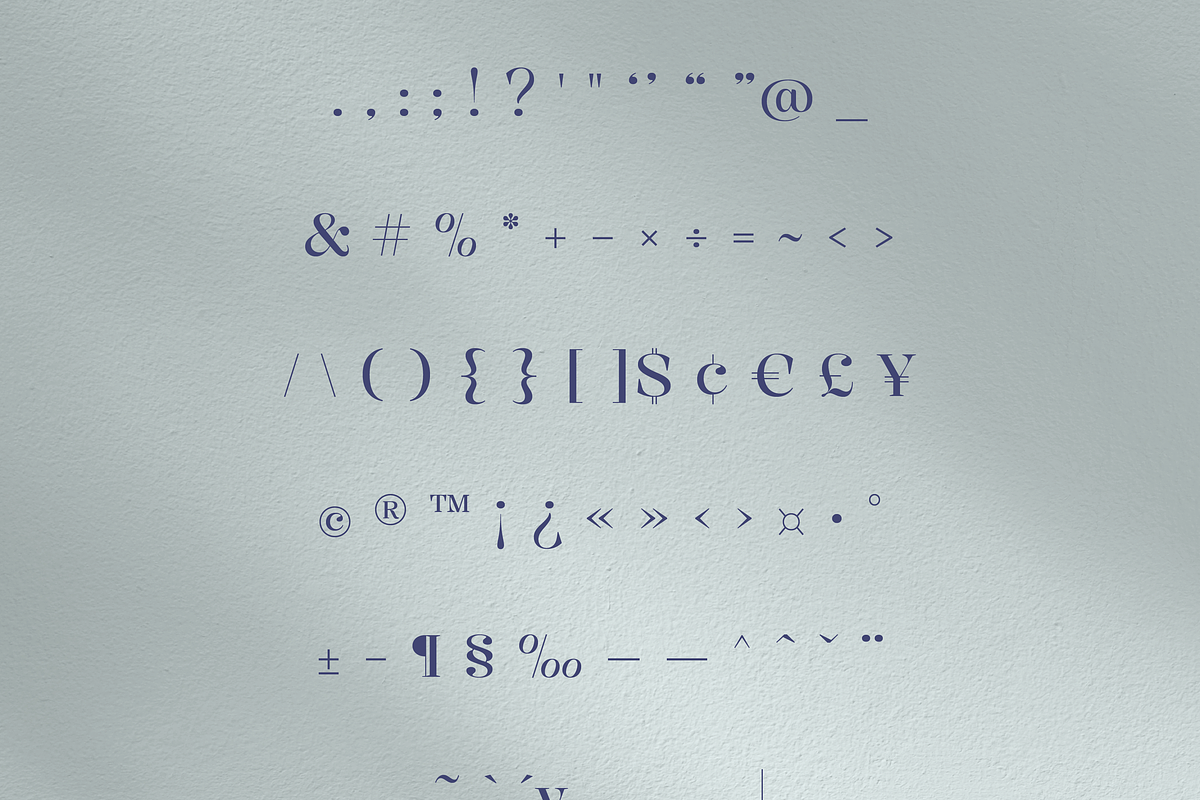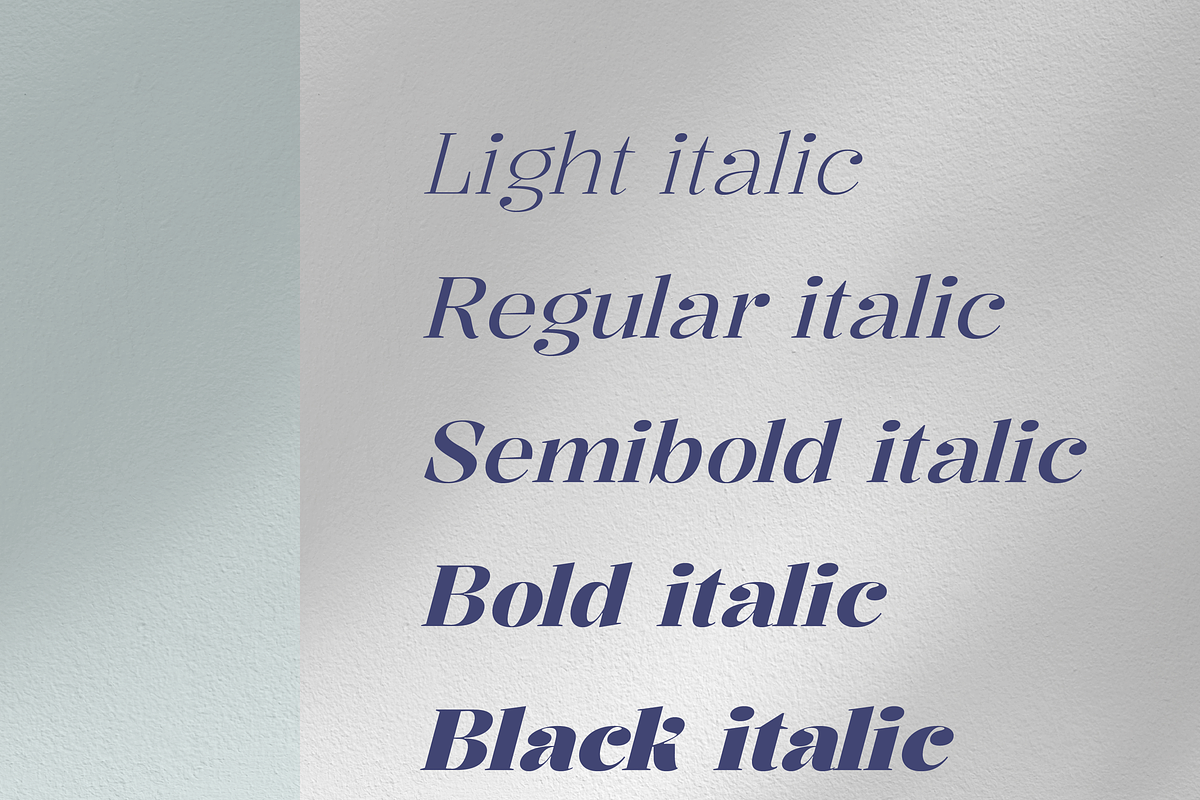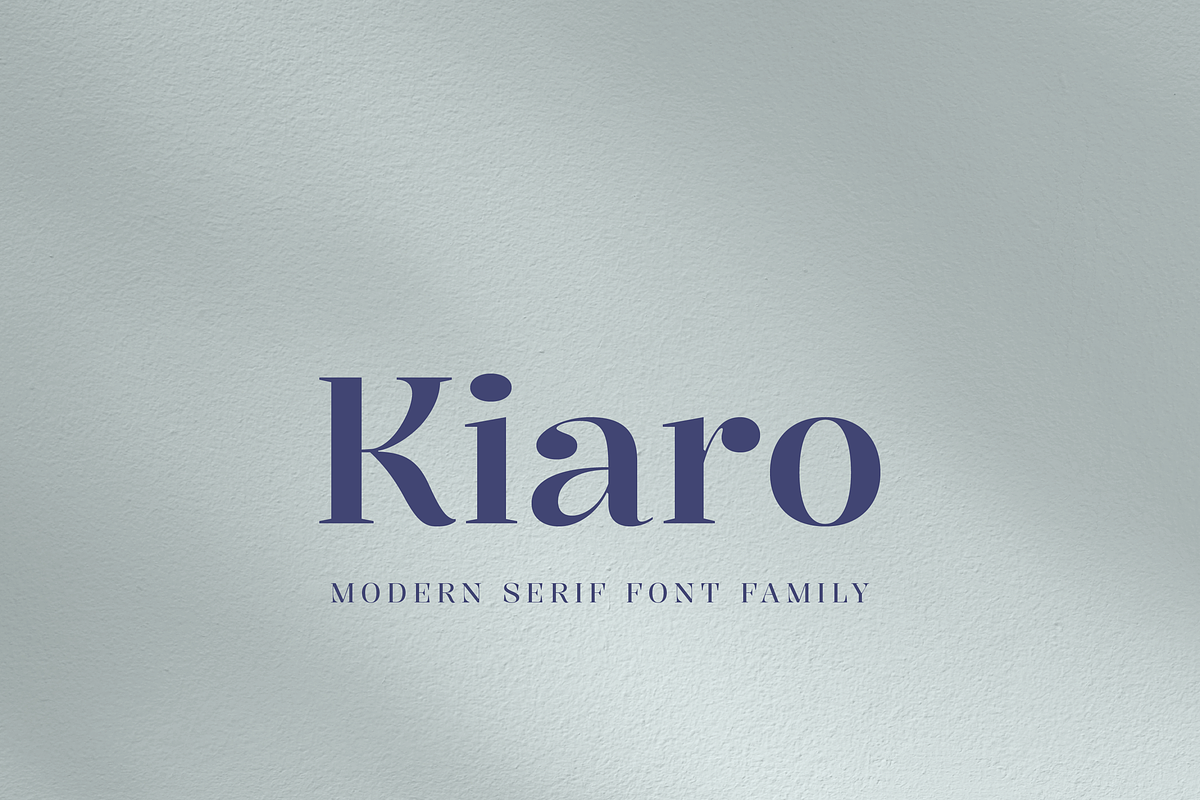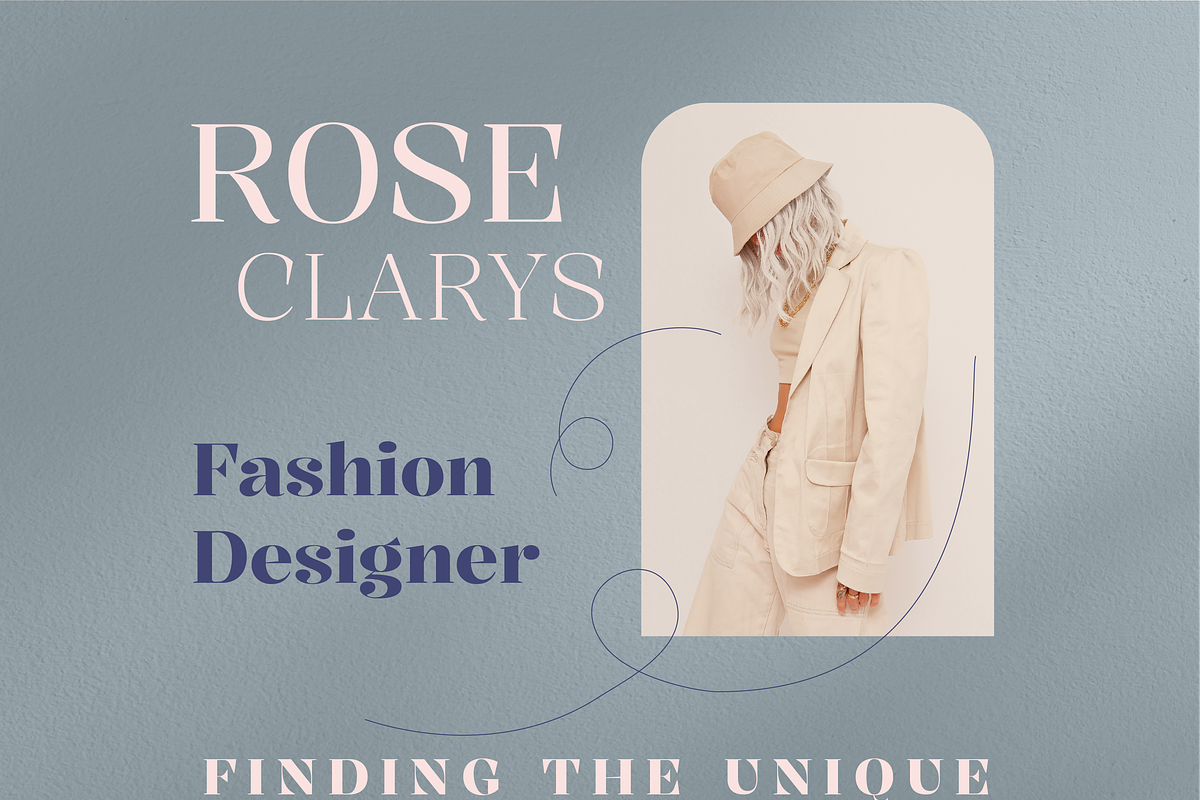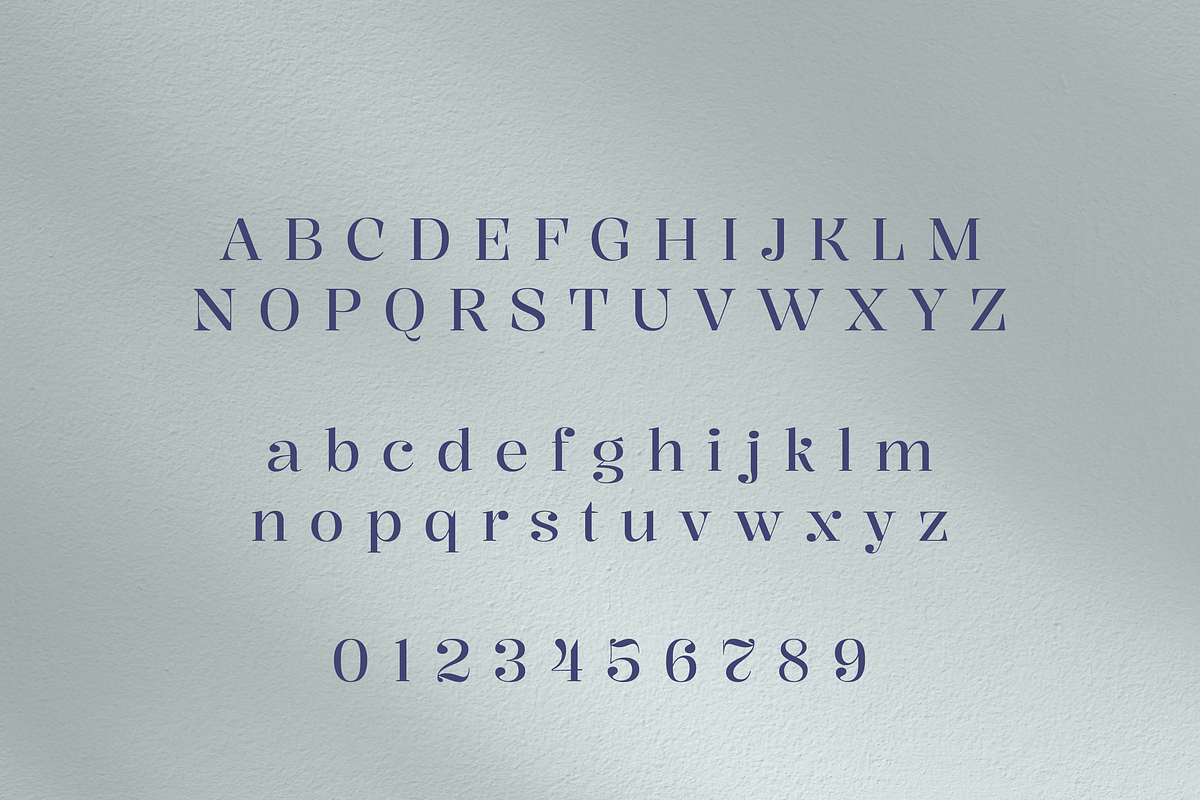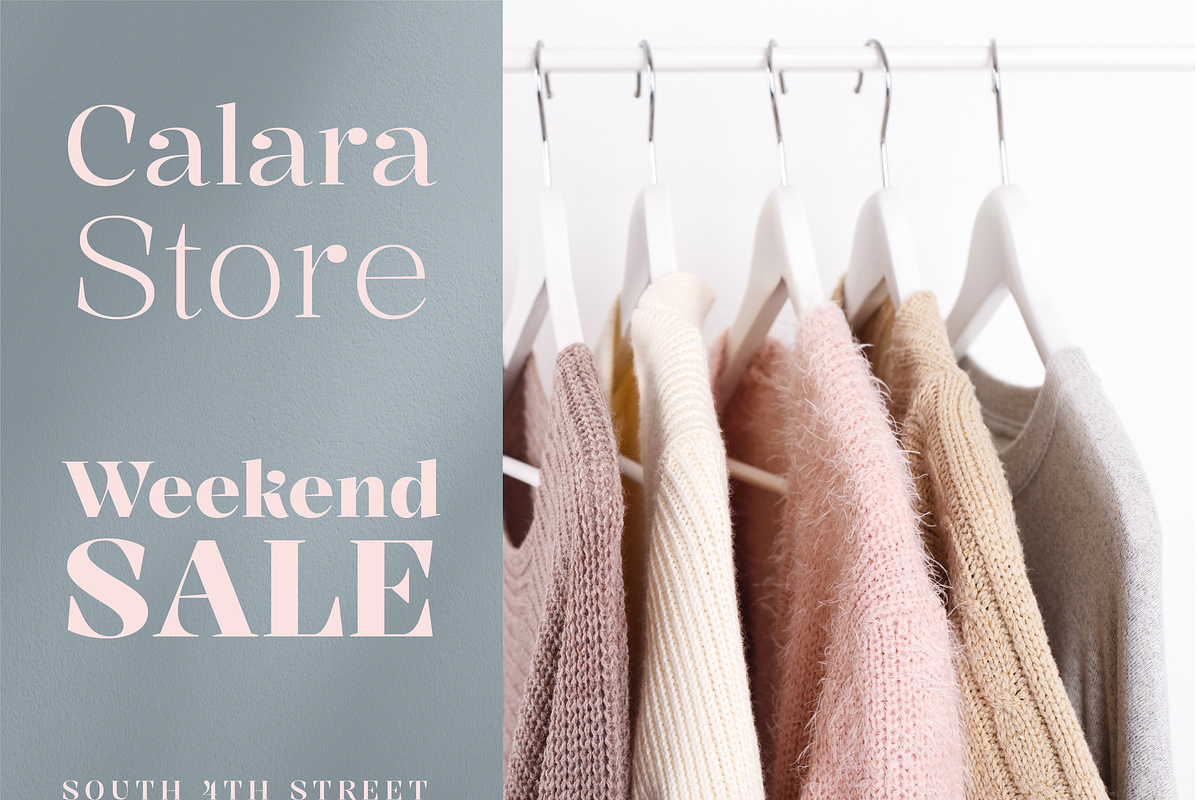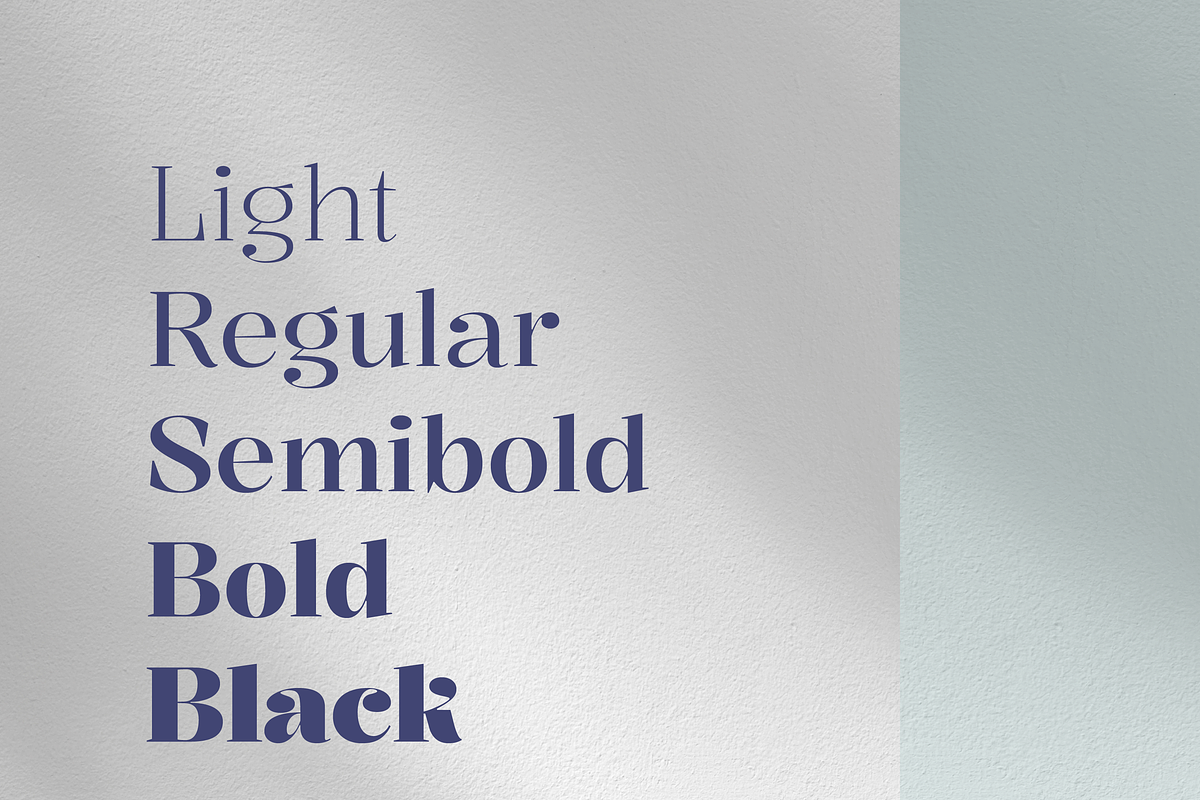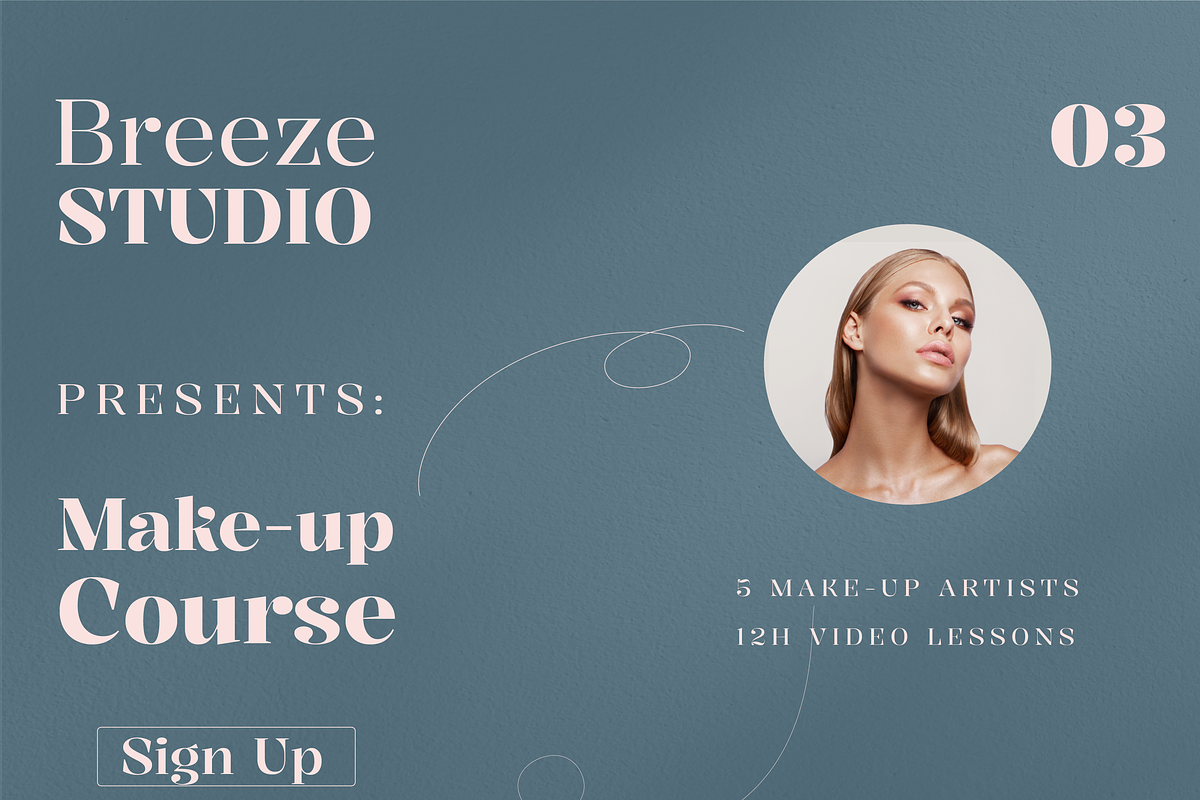
Kiaro Serif | Font Family
Kiaro Font is a sophisticated display typeface that blends the delicate elegance of Victorian-era typography with the bold, eye-catching characteristics of the 'fat face' style. Inspired by a historical transition from manual to machine production, this font pays homage to the bold and expressive designs used for poster headlines during the Victorian period.